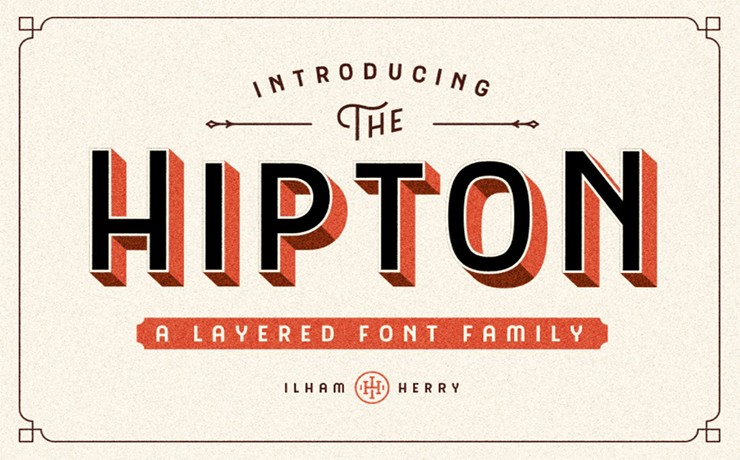
The HIPTON Font is a new layered typeface that features a very subtle 3D effect that will look great on label and badge designs.
This typeface will fit in nicely with titles, headings, and alcohol brands as well as many others. It was designed by Ilham Herry and released by Ilham Herry.
It comes in an embossed shape that gives a chunky look throughout the font. And that’s really a big part of it because it gives it a unique appearance.
And you will notice that this designer has added extra lines to the right of each character. This builds is even extra beautiful as it shades the display font characters.
Font Name: | The HIPTON Font Family |
Style: | Display, 3D, Unique |
Font Designer: | Ilham Herry |
This display font is ideally suitable for headlines, logotypes, signs, posters, greeting cards, game graphics, letterheads, t-shirts, and many more.
This font, which comes in 8 different styles including regular, inline, outline, etc.